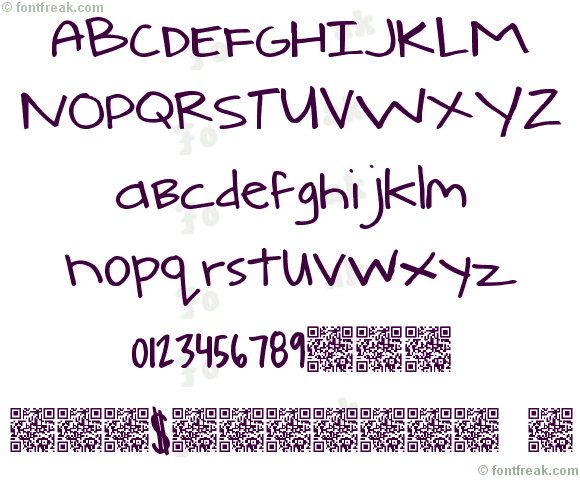
ComeAround
The ComeAround font by Xerographer Fonts is a delightful handwritten typeface that exudes a casual yet charming personality. This font features a playful, informal style that mimics the art of natural handwriting, making it an excellent choice for projects that require a personal touch. The stroke weight is consistent, contributing to its approachable feel, while the gentle curves and loops add a whimsical character. The spacing is well-balanced, ensuring readability without sacrificing the organic flow typical of handwritten fonts.
ComeAround is particularly well-suited for a variety of creative applications. It shines in wedding invitations, where its charming style can convey warmth and intimacy. Additionally, it works wonderfully for greeting cards, lending a personal flair that recipients will appreciate. For restaurant menus, ComeAround can add a friendly vibe, inviting diners to enjoy a casual dining experience. Furthermore, it’s ideal for social media graphics and promotional materials, helping small businesses connect with their audience in a relatable way.
What truly sets the ComeAround font apart is its ability to bridge the gap between professionalism and playfulness. It stands out as a font that can be both engaging and elegant, making it a favorite among creatives who want their designs to resonate with authenticity. Don't miss your chance to explore the ComeAround font free download and elevate your next project with this unique typeface.